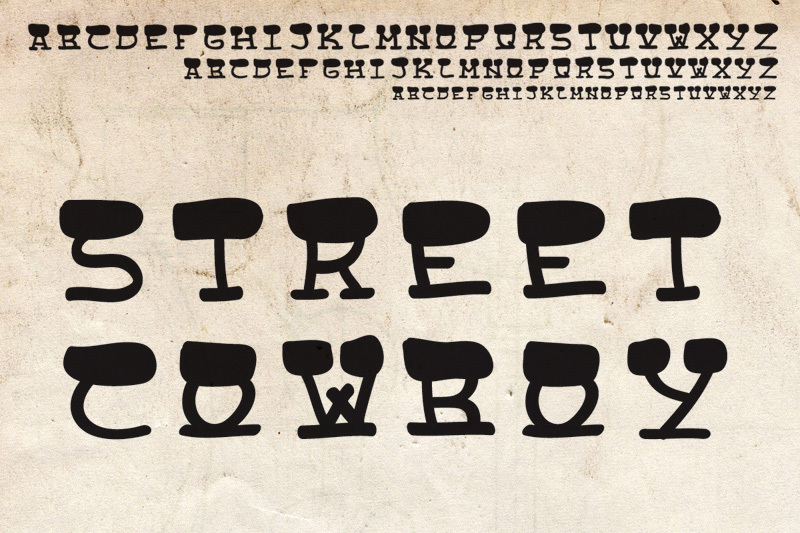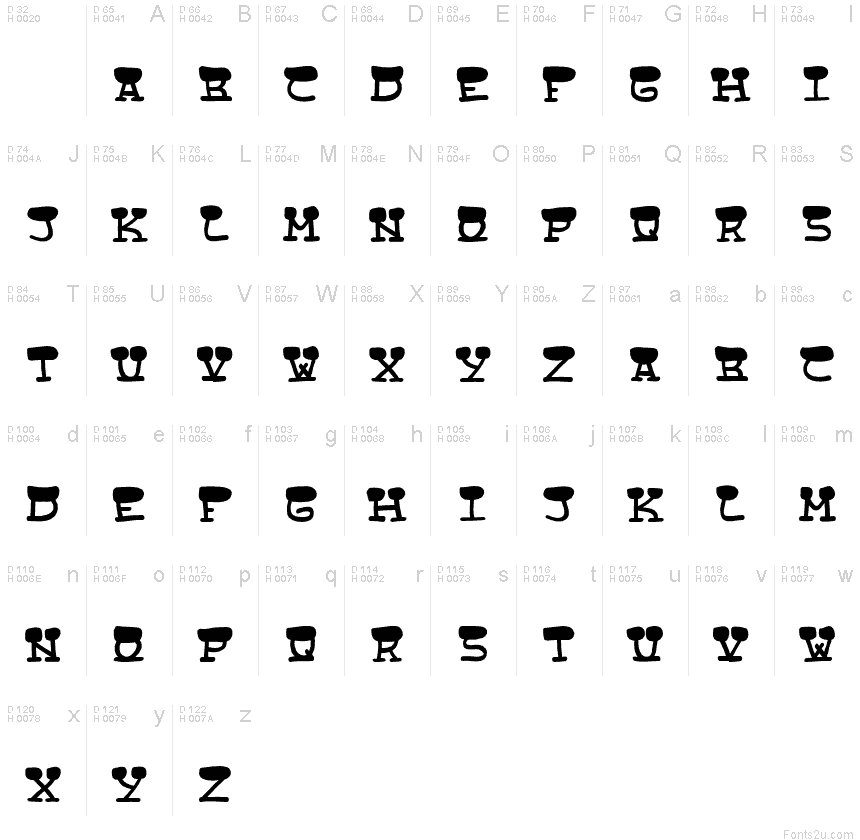
Street Cowboys
Ironic approach to typographic design with a source involved in the formation of appropriate signage and display where it comes to finding a hybrid between the historic wooden forms and calligraphic informality of the comic language